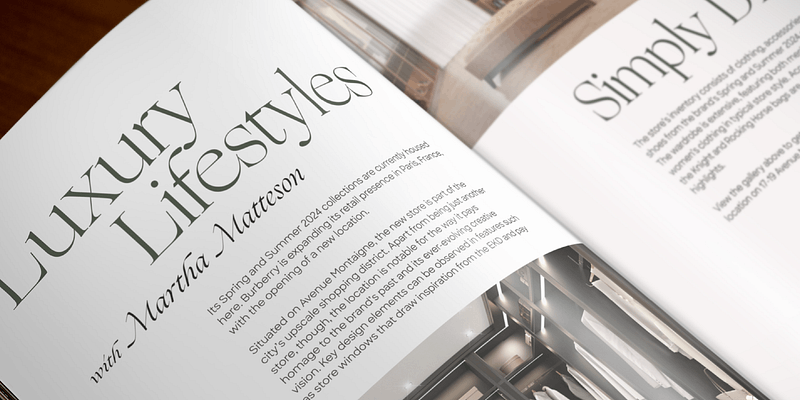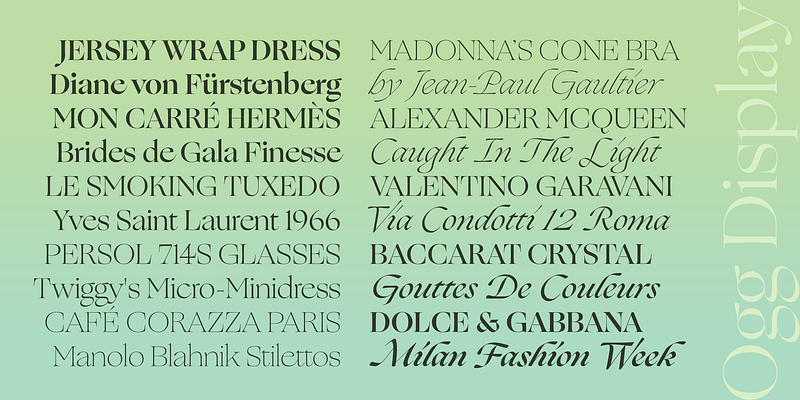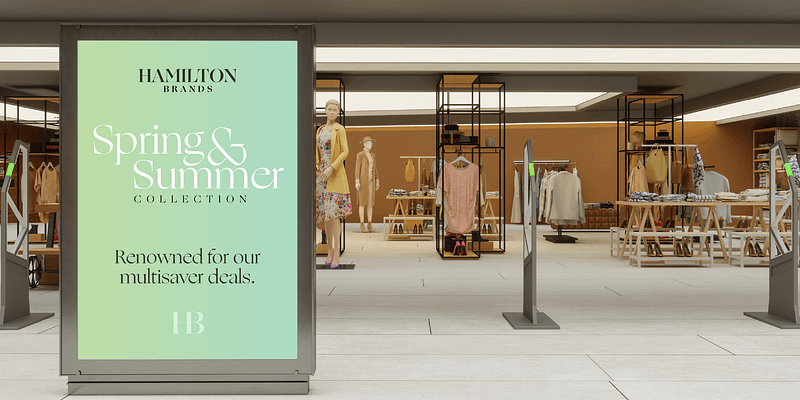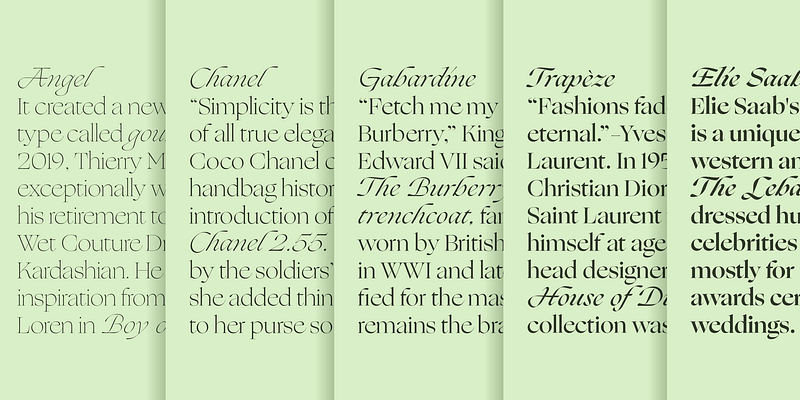
Inspired by the hand lettering of 20th century book designer and calligrapher Oscar Ogg, Ogg captures the unique mix of calligraphic and typographic form he achieved through his use of hand carved pen nibs, brushes, and white-out. Signature moves found throughout Ogg’s calligraphic works were explored, exaggerated, and refined in the high contrast design space of Ogg. The original lettering samples are a combination of calligraphic stroke, contour drawing, and white-out (reduction). This combination of calligraphic and constructed forms became the perfect jumping off point for typographic exploration.